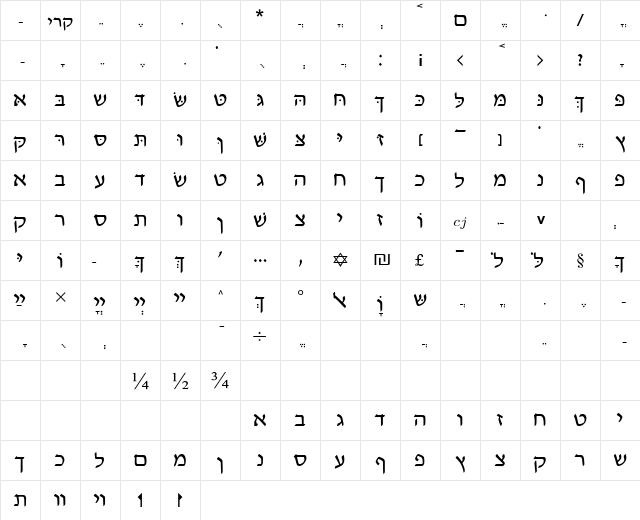
HBR1 Normal
Design Context for HBR1 Typeface
HBR1 takes a measured approach to typography — its balanced proportions and neutral character make it a reliable workhorse for both digital and print work.